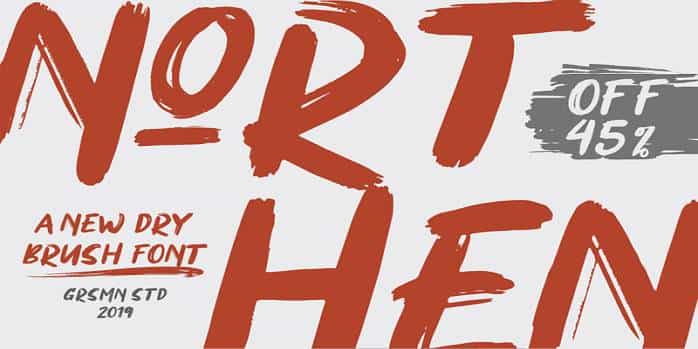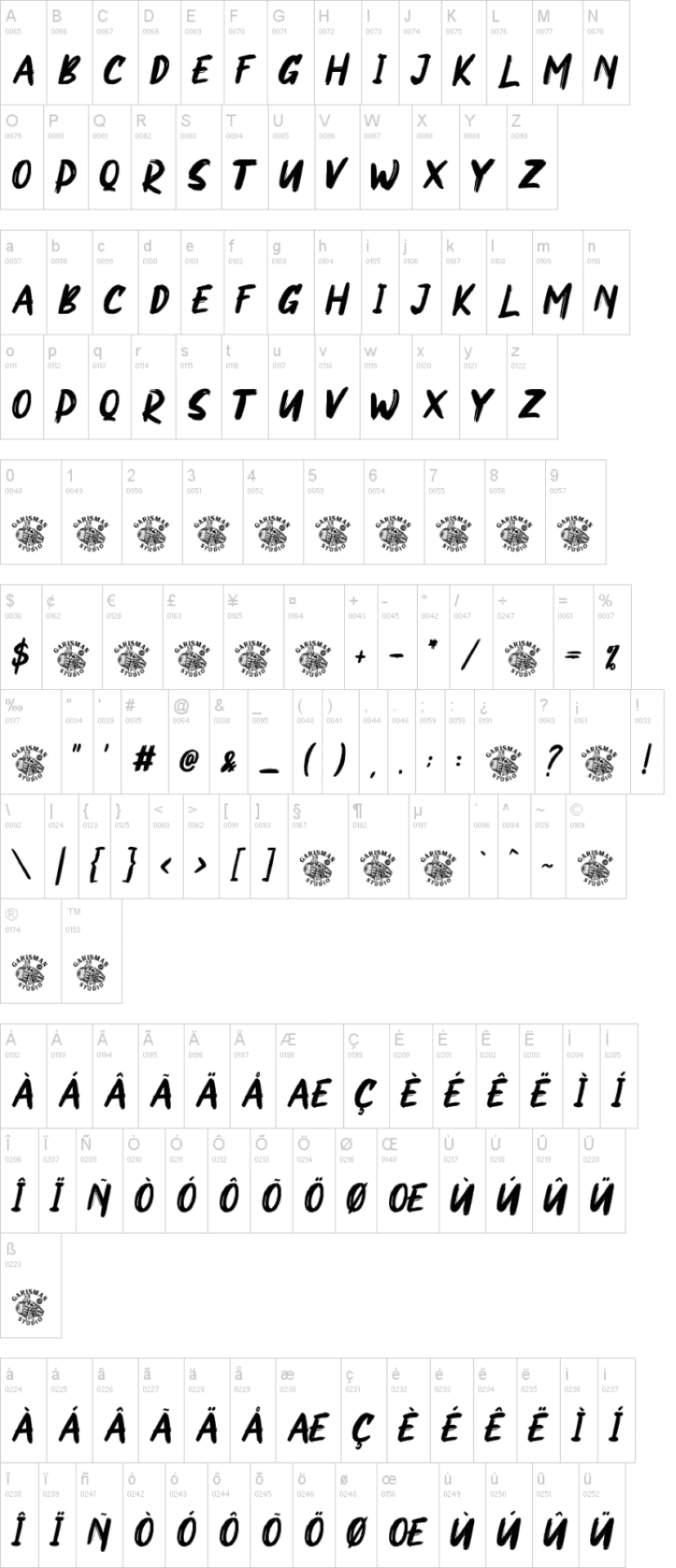
Discover Northen Font, part of the Brush collection—a versatile and unique font perfect for adding a personal touch to your projects. Download it for free and enjoy crafting designs with style, from invitations to social media posts. This font is available exclusively for personal use, giving you the freedom to create without limits. Unlock your creativity with Northen Font today!
Northen is a Brush font that is designed by Garisman Studio and it is a high quality font and it can be downloaded and used for personal also its free. The free version includes all capital and small letters plus some special characters too.